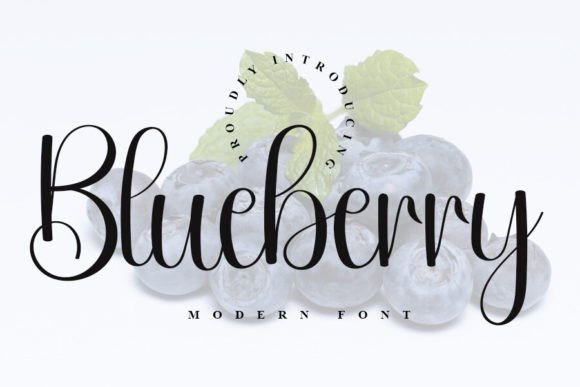
Download Blueberry Font for free! Created by ABBAsalam and published by Martin Beard, this script font family is perfect for adding a unique touch to your designs.